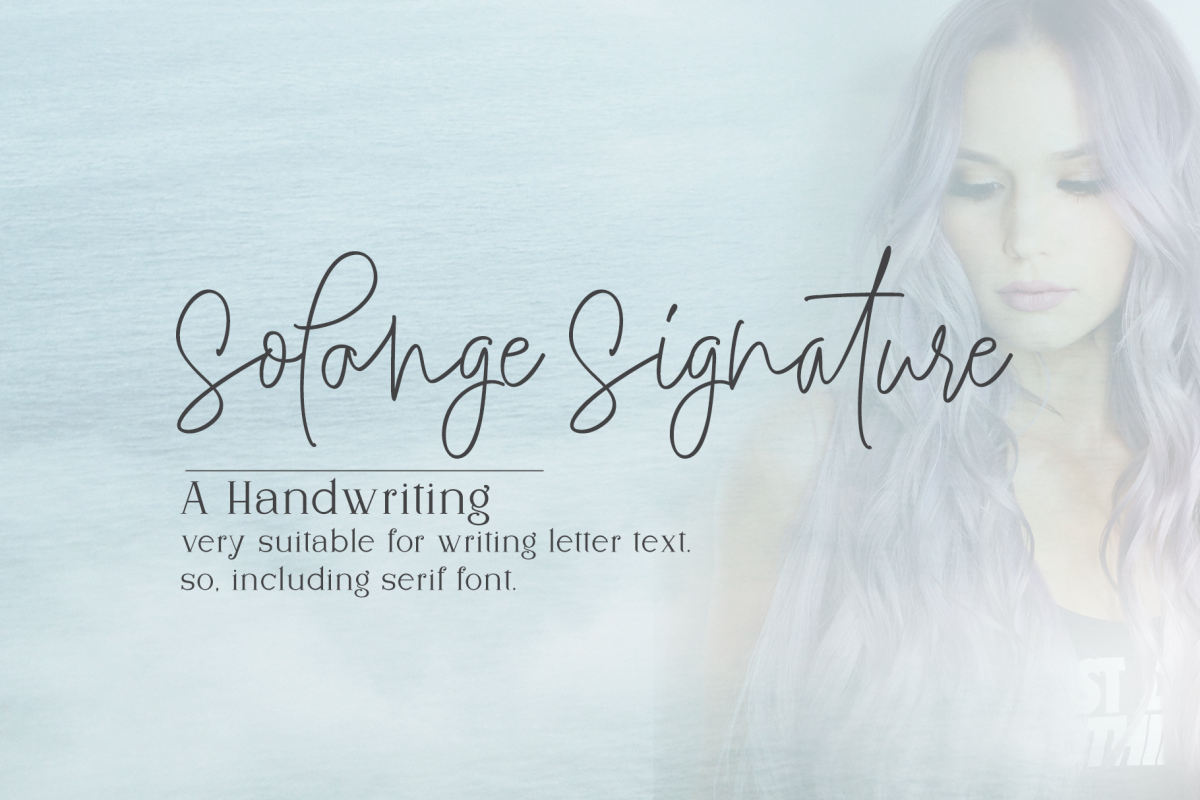
Solange and Nathalia
Nathalia Italic
Solange Italic
Nathalia
Solange
FONTDUO SCRIPT AND SERIF
Solange is a normal and italic font script a work that is purely a result of handwriting, has a natural characteristic.Solange has two sets of letters, namely Stylistic standard and Stylistic Alternate. and includes uppercase and lowercase letters, numbers and punctuation marks, also equipped with 52 ligature.
Nathalia is a normal and italic serif font with its delicate and gentle characteristic. It is perfect for invitations, signatures, blogs, social media, business cards, product brands.Solange & Nathalia has style standards, Stylistic Alternate and ligatures. and includes uppercase and lowercase letters, numbers and punctuation.